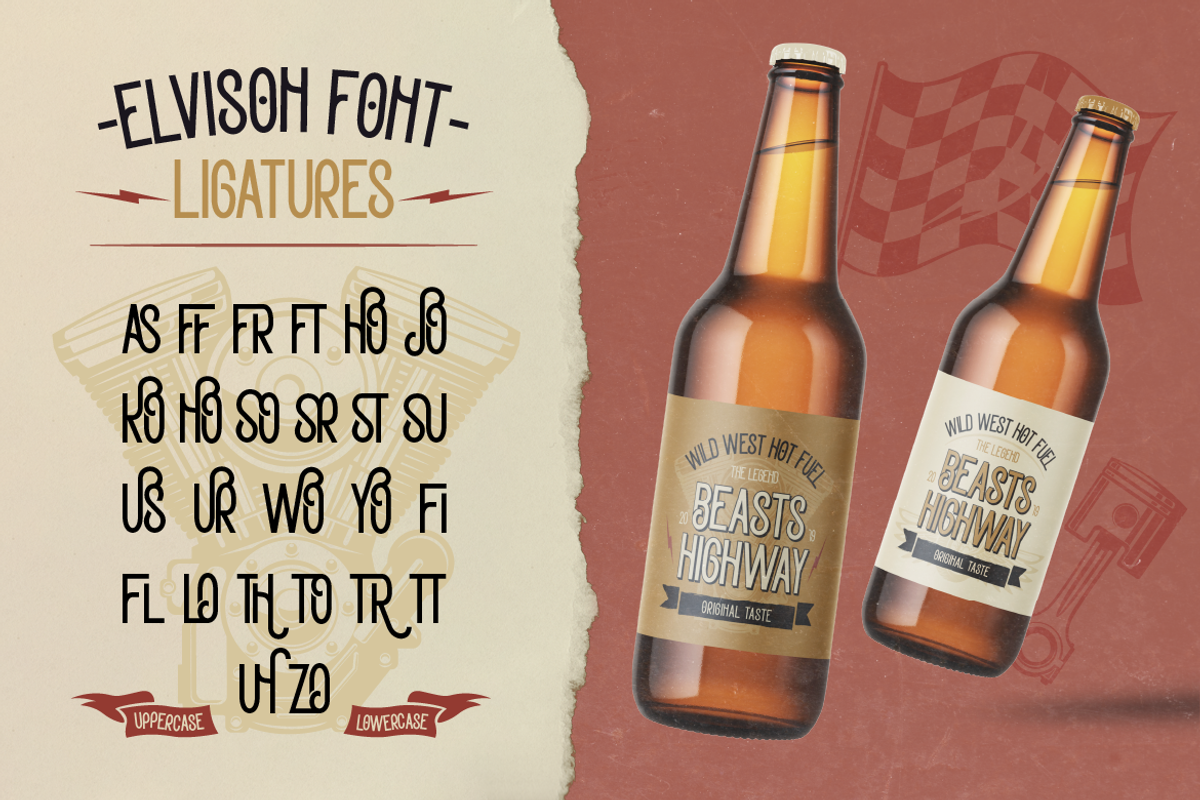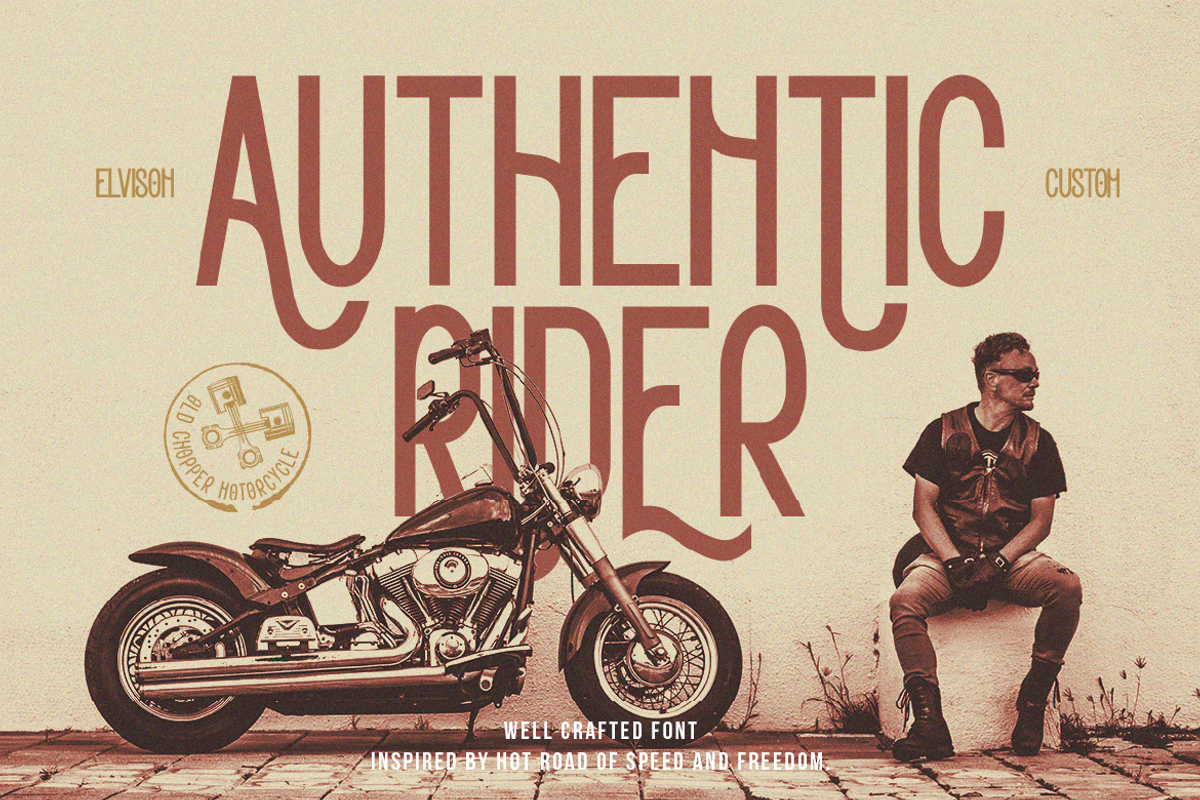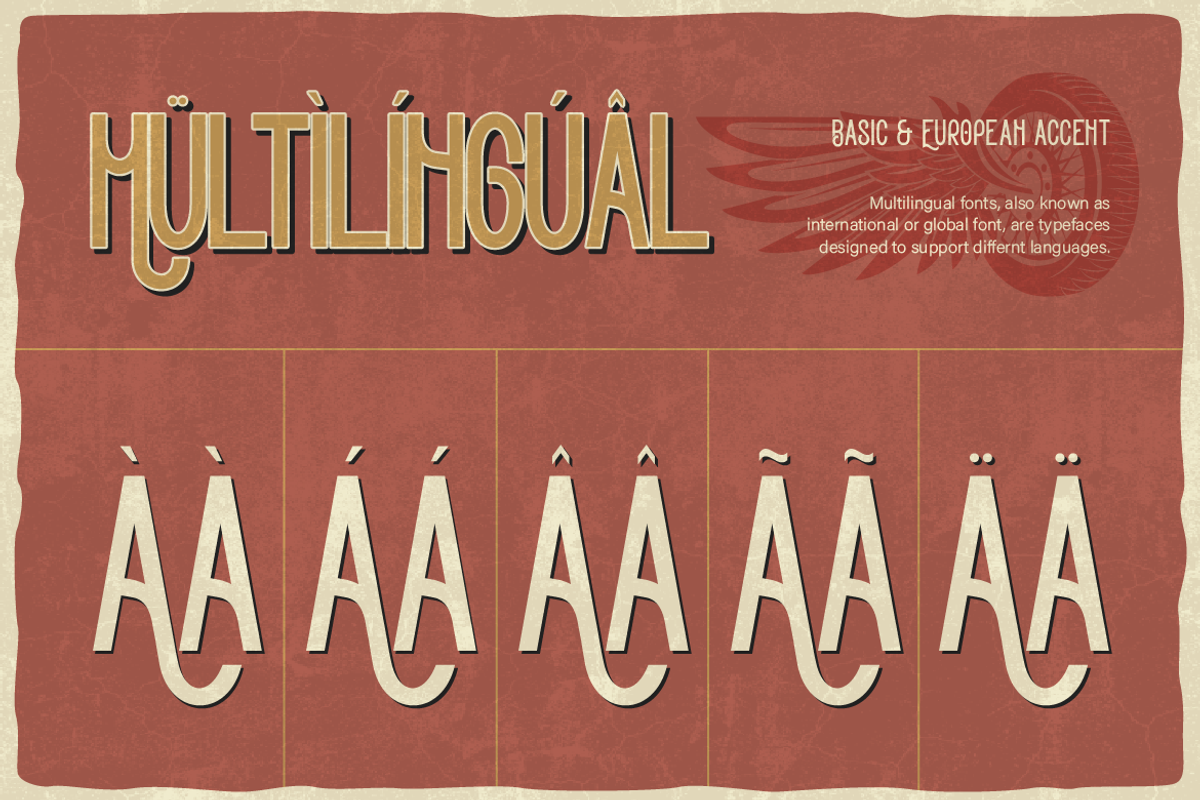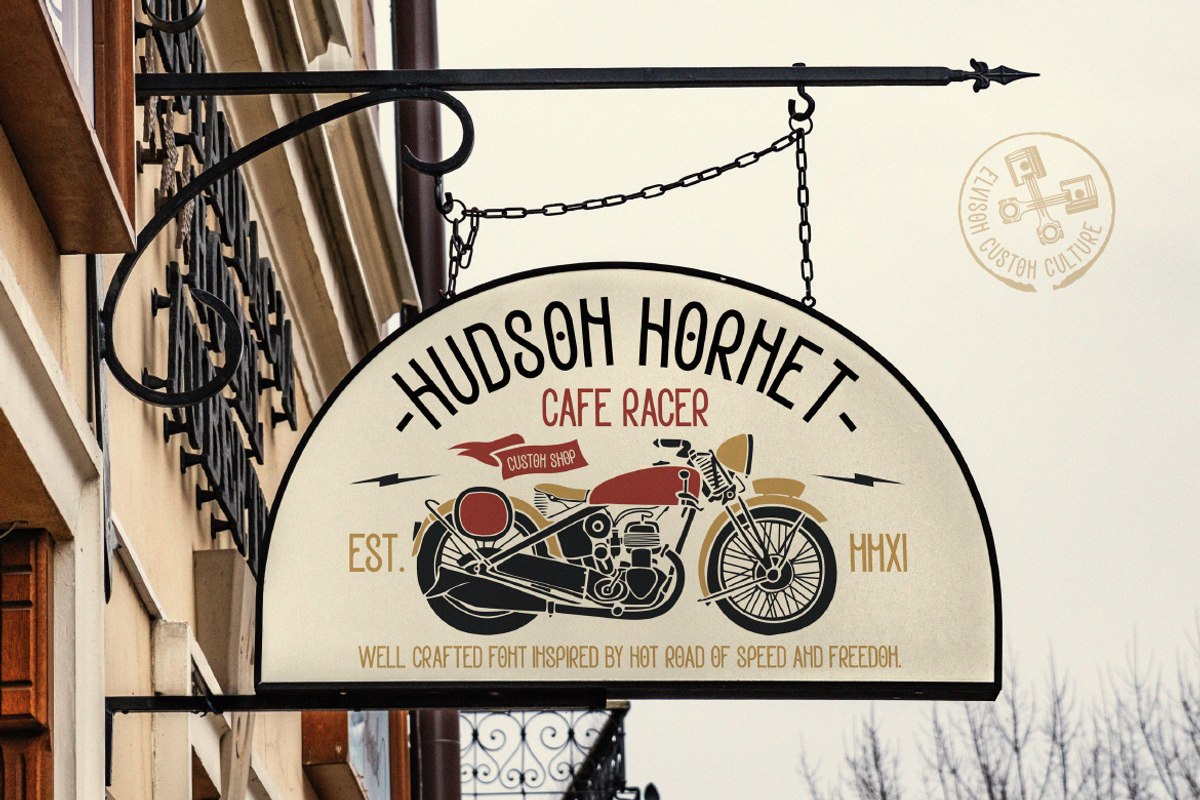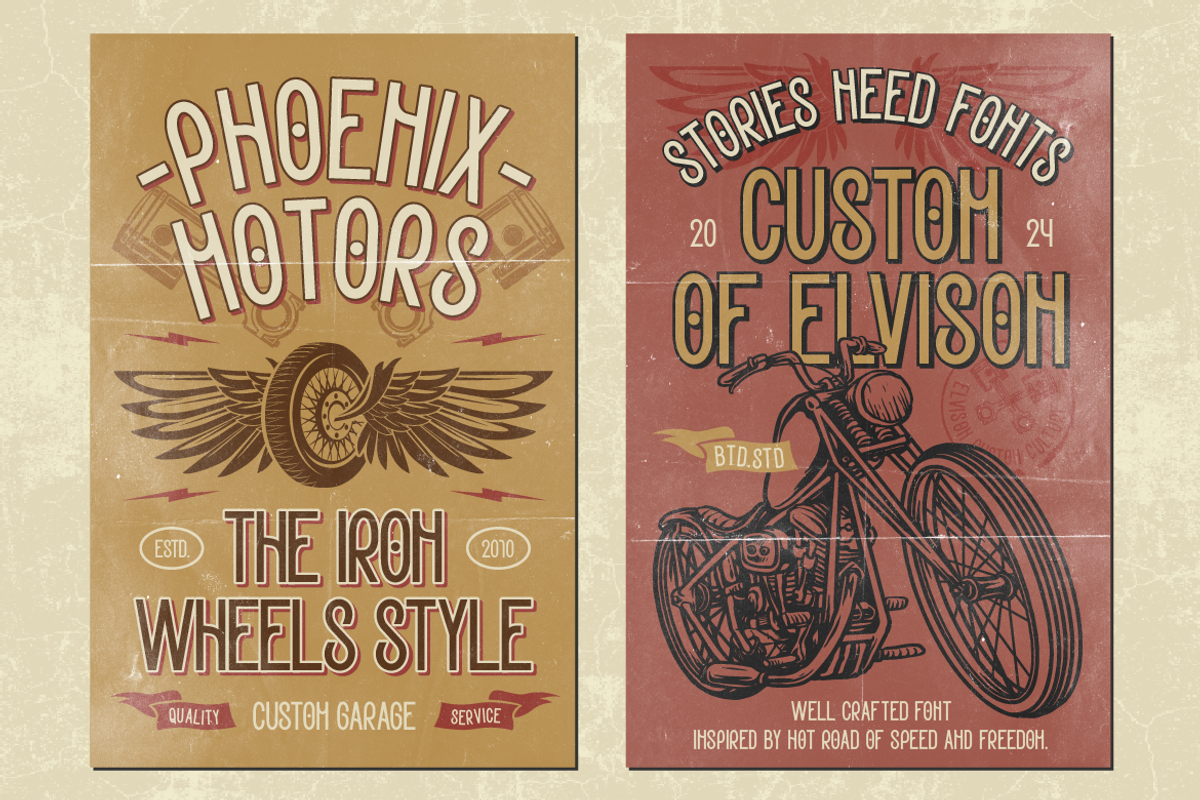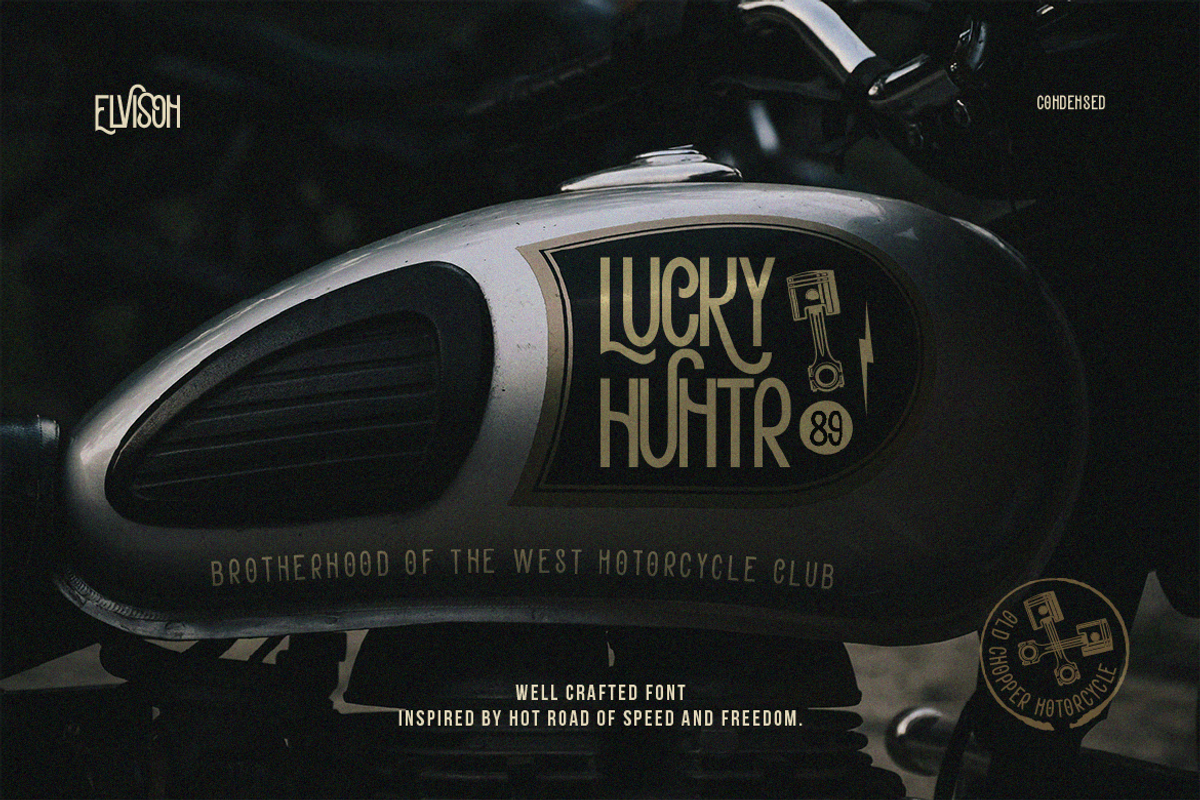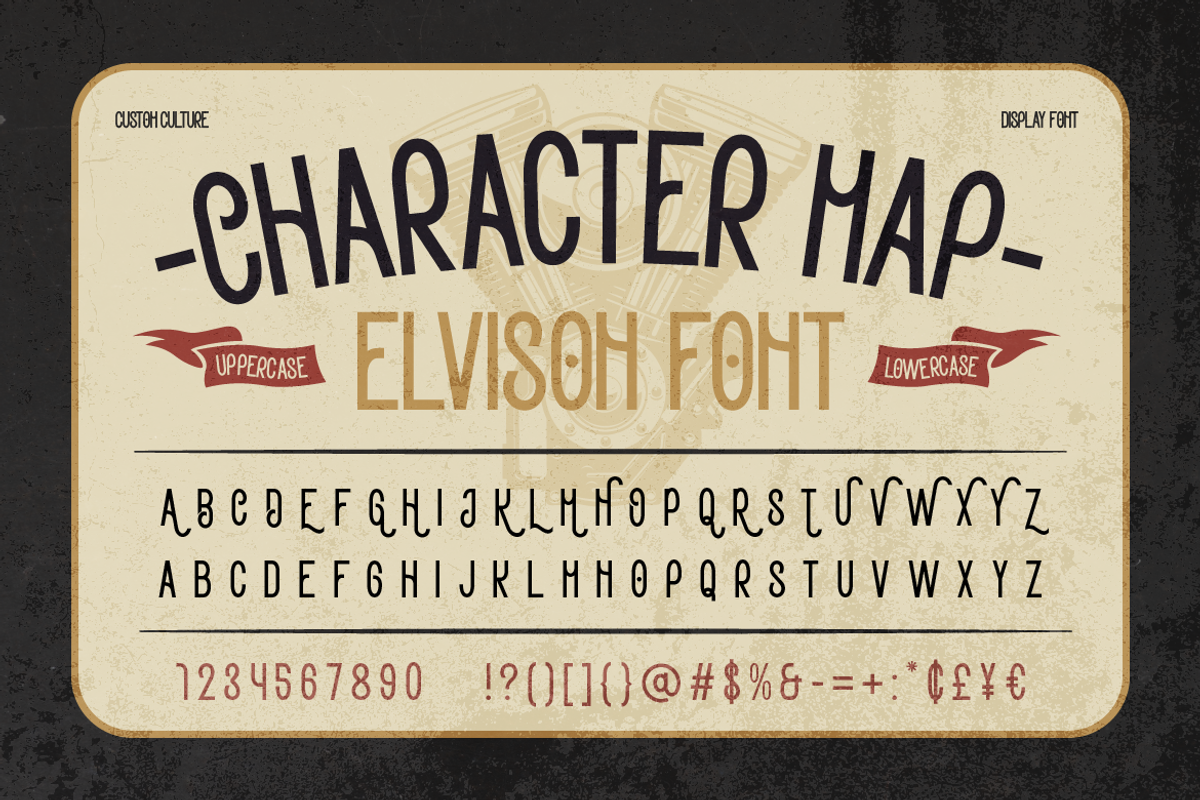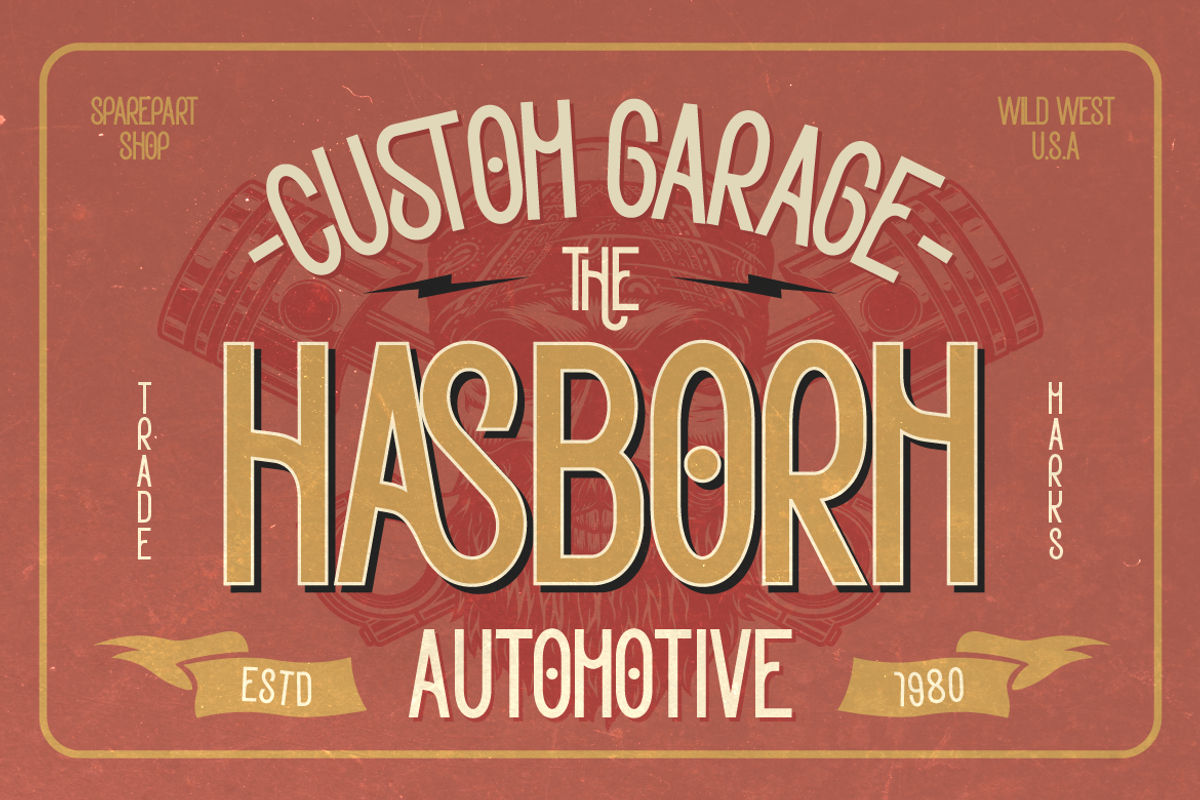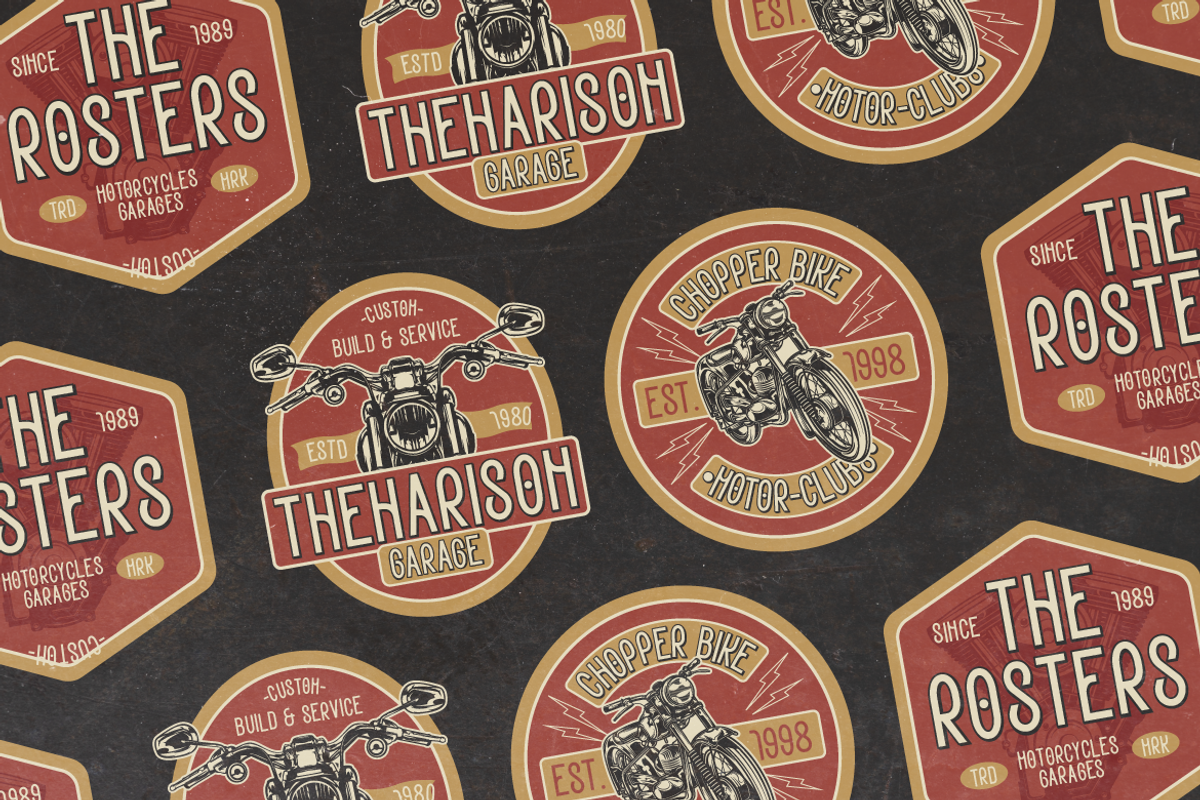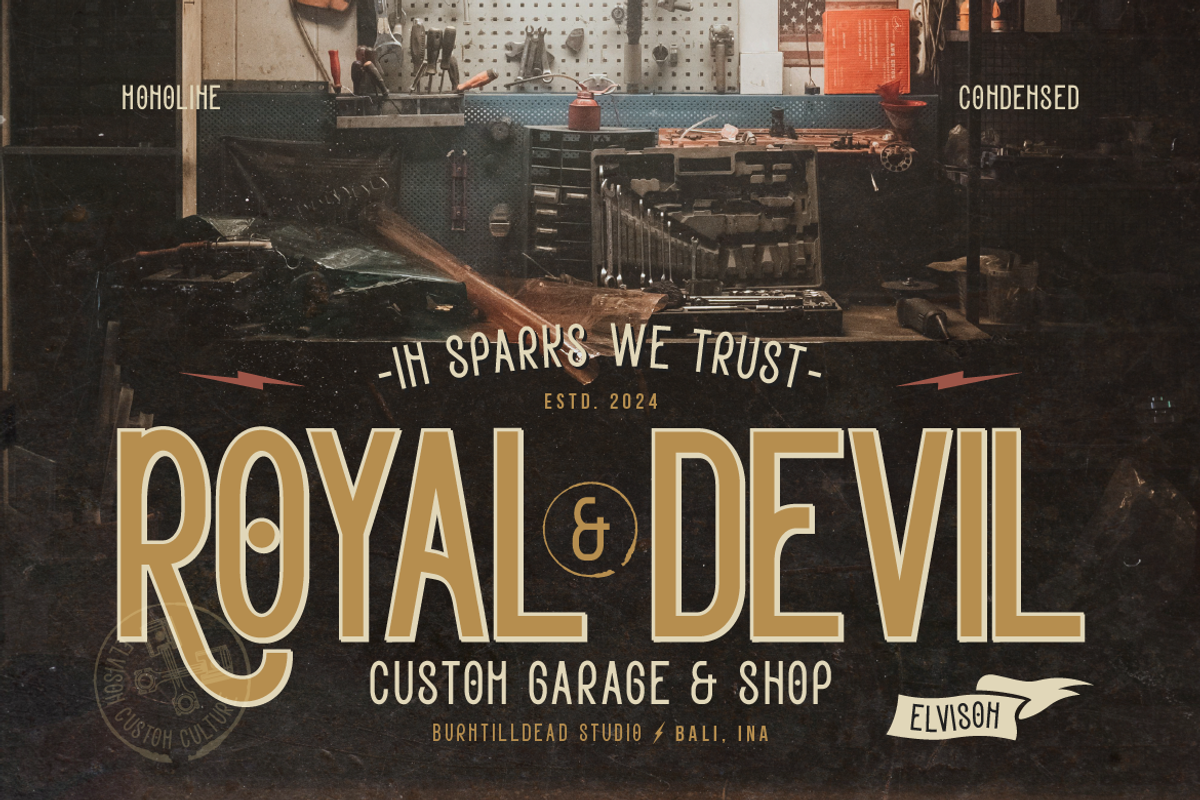
Elvison
Proudly present, elvison, a culture custom font inspired by the spirit of classic american design. Elvision is condensed monoline with unique ligatures that make sense of vintage, nostalgia, classic, custom culture, machine, art deco, grunge and retro. The multilingual support making it sutibale for international projects. This font ideal for branding, poster, social media, automotive, sports, barbershop, tattoo parlor, music cover album and many more.